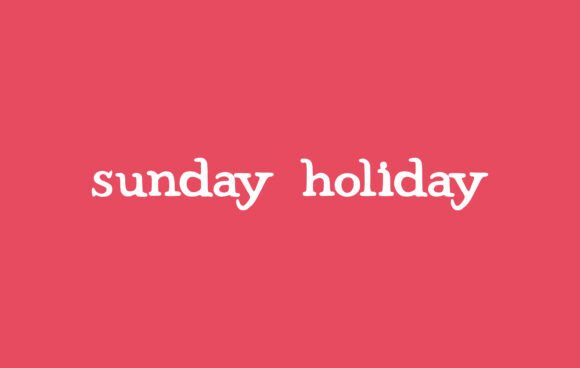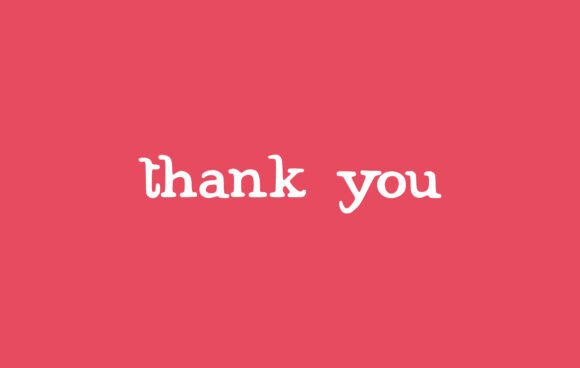
Introducing Harlan Font: The Perfect Blend of Romance and Legibility
In the world of typography, fonts play a crucial role in bringing creative ideas to life. Among the numerous fonts available, Harlan Font stands out for its unique blend of romance and legibility. Designed to be a true favorite among designers and crafters, Harlan Font has the potential to elevate your designs to new heights. In this article, we’ll explore the features and benefits of Harlan Font, and how it can be used to create stunning designs for various applications.
The Romance of Harlan Font
Harlan Font boasts an authentic and romantic touch, making it perfect for designs that require a personal and emotional connection. The font’s elegant curves and lines evoke a sense of sophistication and refinement, adding a touch of luxury to any design. Whether you’re creating wedding invitations, social media graphics, or branding materials, Harlan Font’s romantic charm is sure to captivate your audience.
Legibility and Versatility
One of the standout features of Harlan Font is its exceptional legibility. The font is designed to be clear and readable, making it suitable for both title and body text. This versatility allows designers to use Harlan Font in a wide range of applications, from magazine headlines to social media posts, and from branding materials to wedding invitations.
Design Applications
Harlan Font’s flexibility and charm make it an excellent choice for various design projects. Here are some ideas to get you started:
- Magazine Headlines: Use Harlan Font to create eye-catching headlines that grab readers’ attention.
- Social Media: Add a touch of elegance to your social media graphics, posts, and stories with Harlan Font.
- Branding: Establish your brand’s identity with Harlan Font’s sophisticated and refined look.
- Wedding Invitations: Make your wedding invitations truly special with Harlan Font’s romantic and luxurious feel.
- Cards and Stationery: Create beautiful cards, letters, and stationery with Harlan Font’s elegant and legible design.
Why Choose Harlan Font?
With so many fonts available, why should you choose Harlan Font? Here are a few compelling reasons:
- Unique Style: Harlan Font offers a distinctive and authentic style that sets it apart from other fonts.
- High Legibility: The font’s exceptional legibility ensures that your message is conveyed clearly and effectively.
- Versatility: Harlan Font can be used in various design applications, making it a valuable addition to your font library.
Tips for Using Harlan Font
To get the most out of Harlan Font, here are some tips to keep in mind:
- Experiment with Sizes: Harlan Font looks great in various sizes, so don’t be afraid to experiment with different font sizes to achieve the desired effect.
- Pair with Other Fonts: Combine Harlan Font with other fonts to create a unique and visually appealing design.
- Pay Attention to Kerning: Adjust the kerning to ensure that the font looks balanced and harmonious.